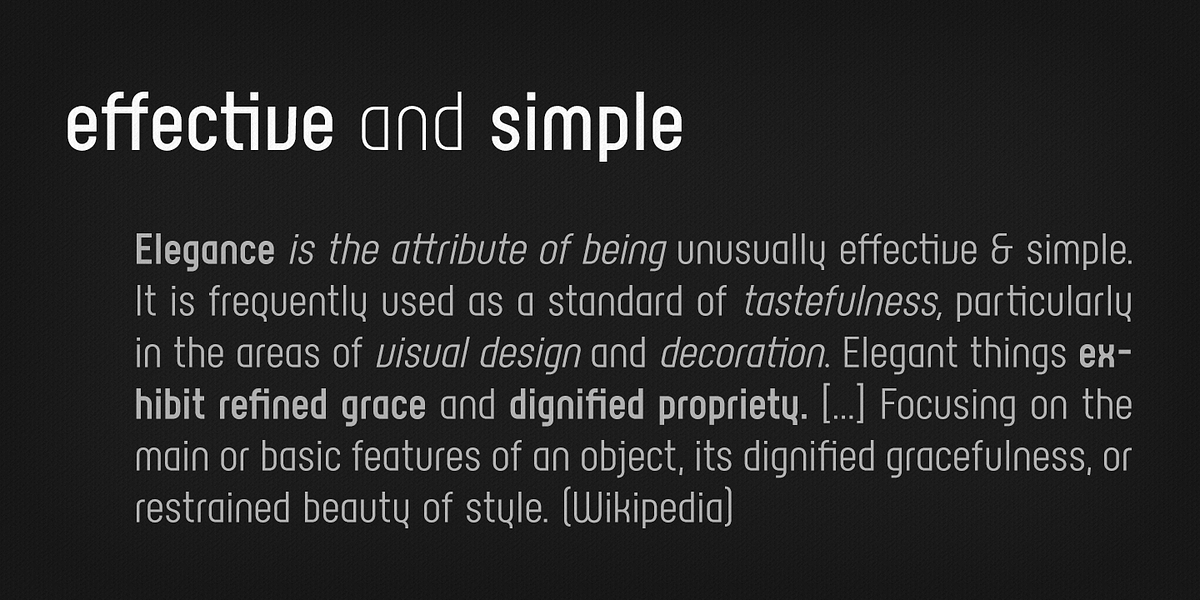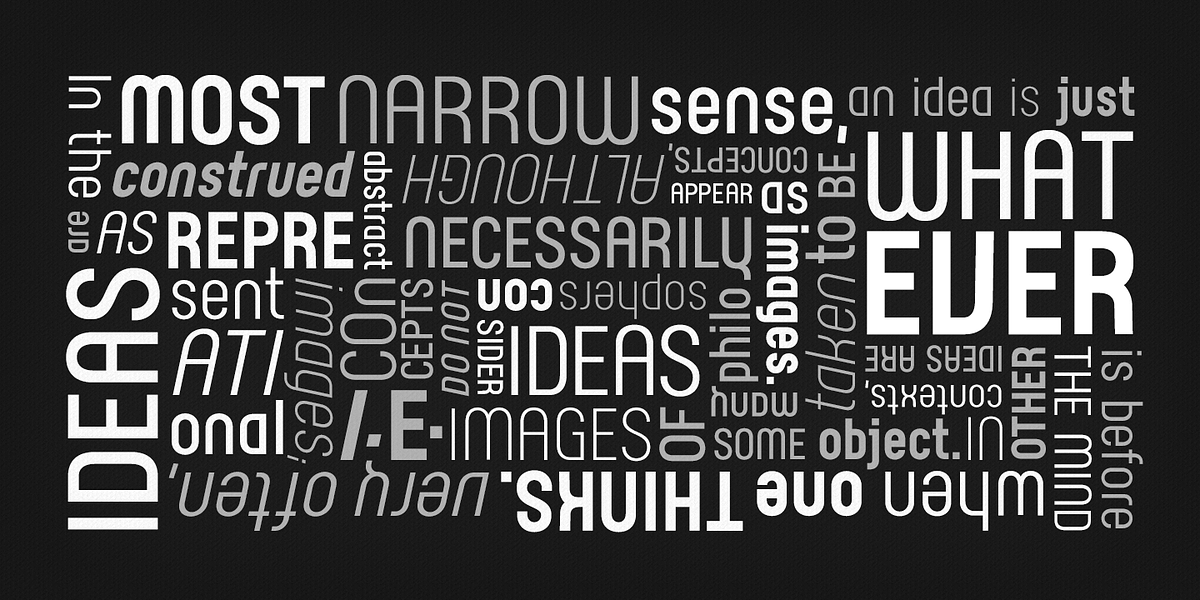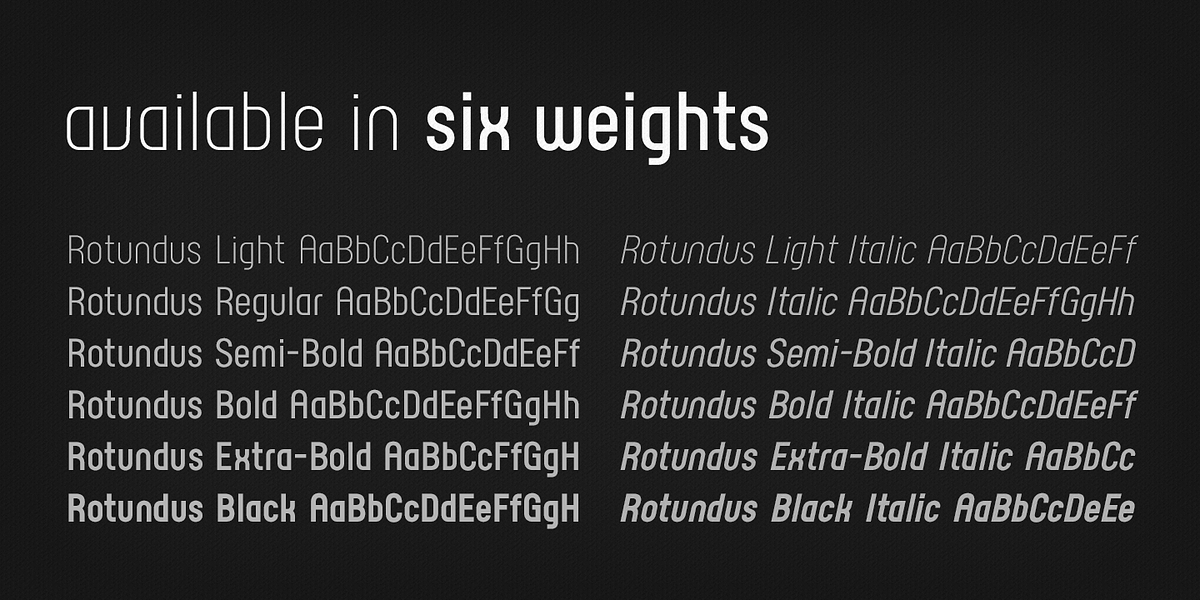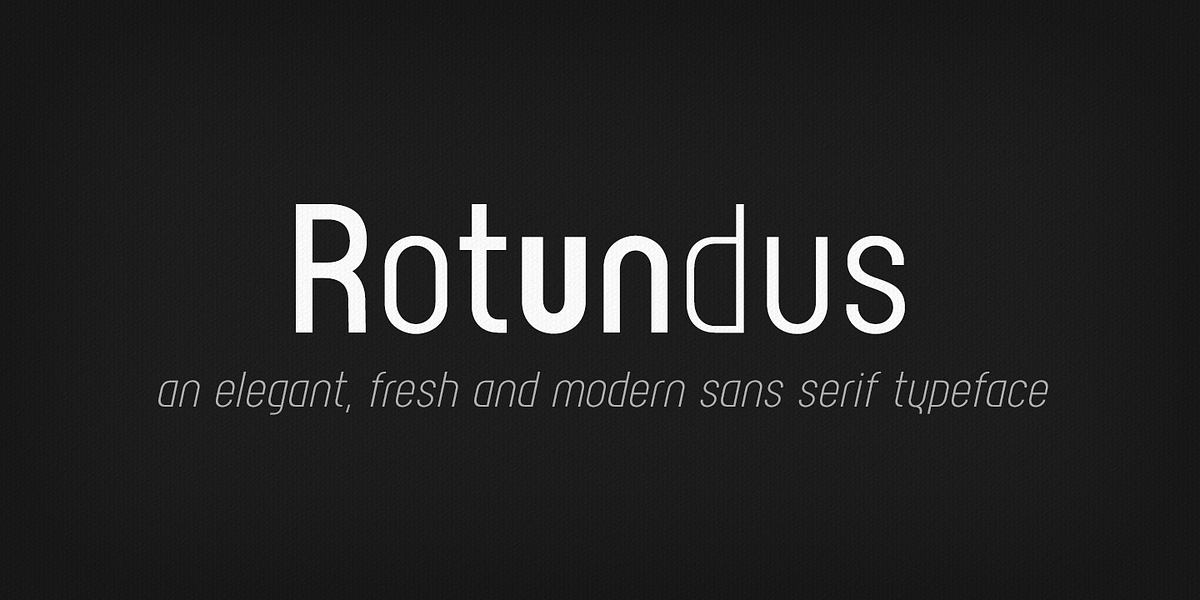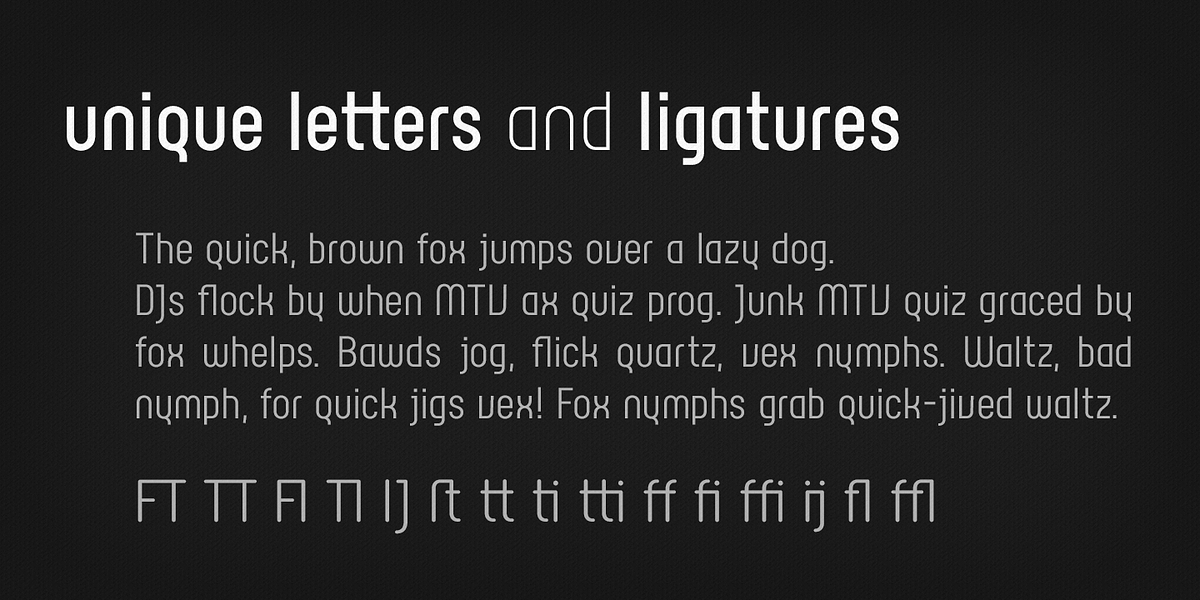
Rotundus
Rotundus is a contemporary sans serif typeface characterized by its geometric shapes and precise lines. Its sharp corners and condensed width contribute to a distinctive yet legible appearance. The font boasts a tall x-height, enhancing readability even at smaller sizes. Available in six weights with matching italics, Rotundus is suitable for both analogue and digital applications, including branding and paragraph text.